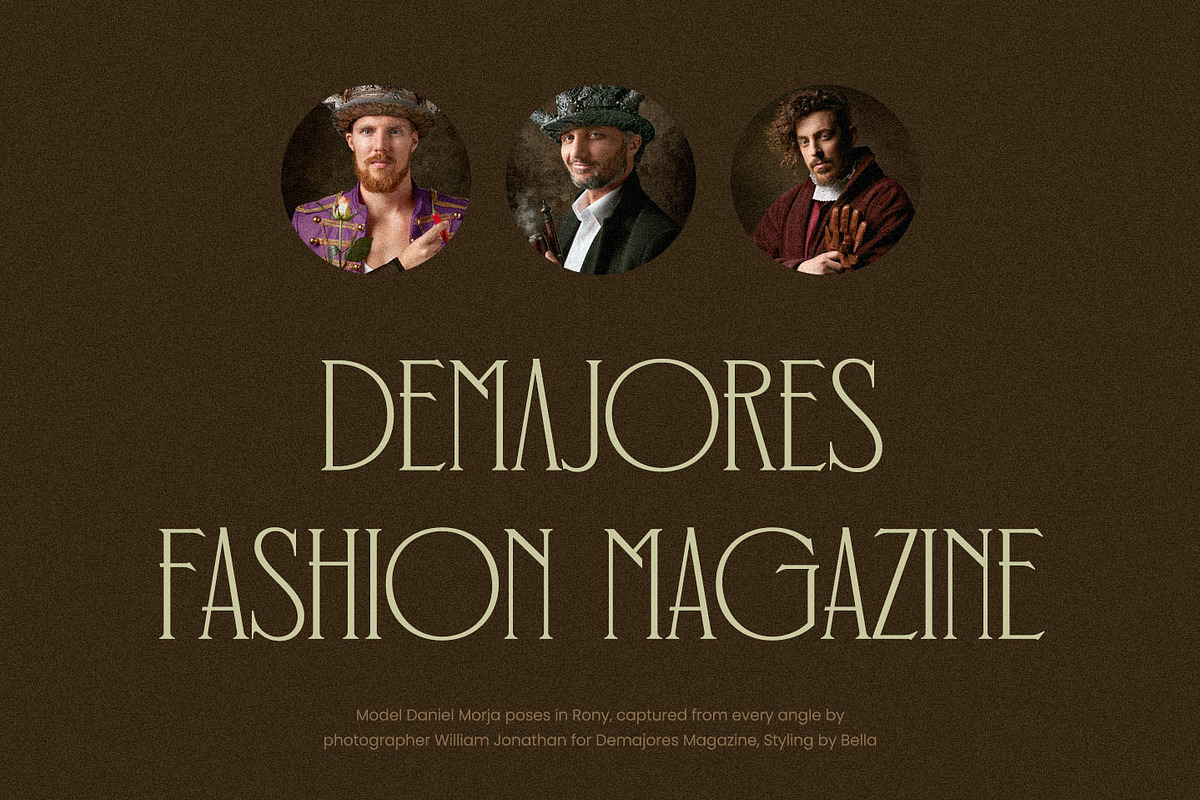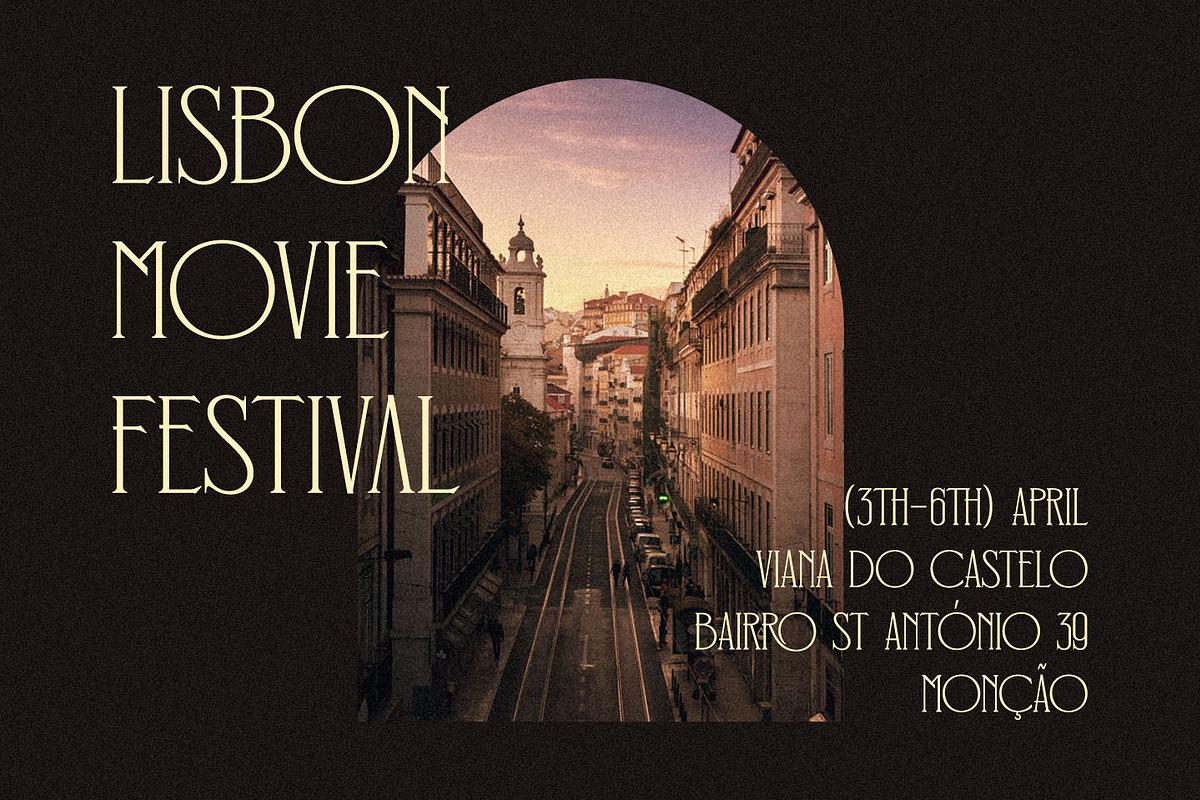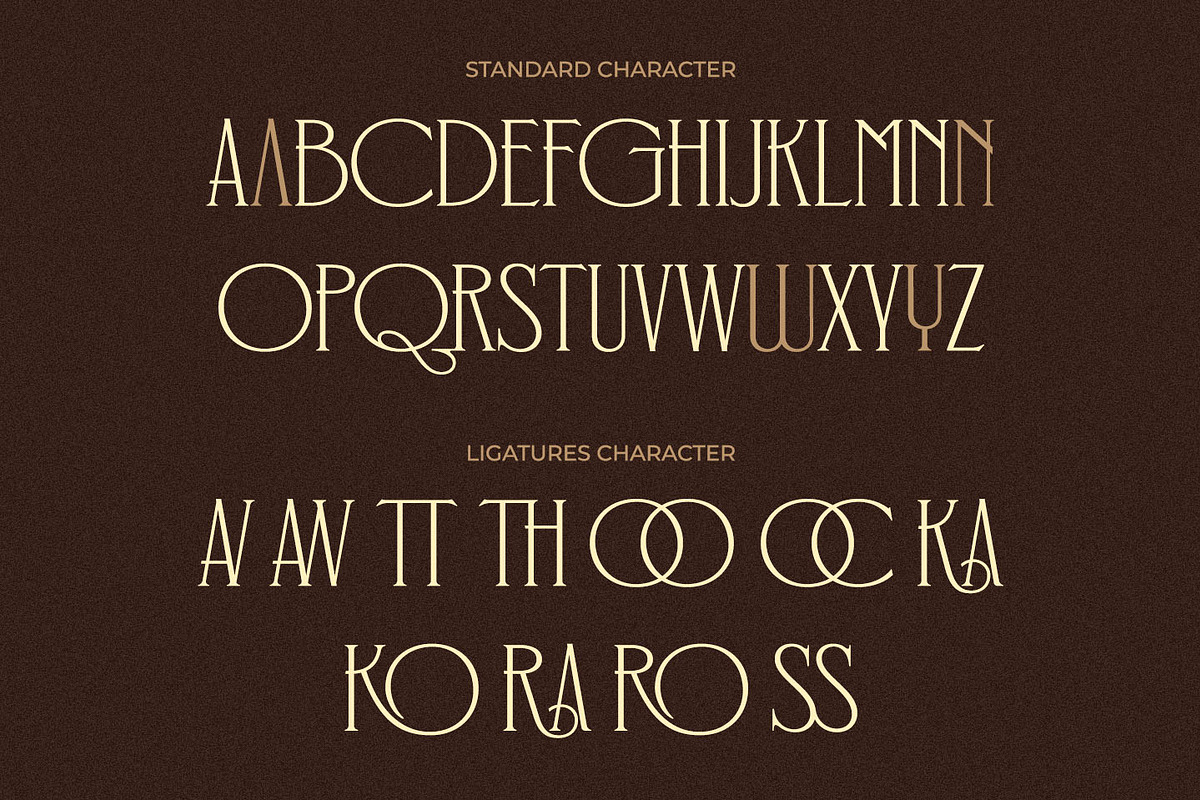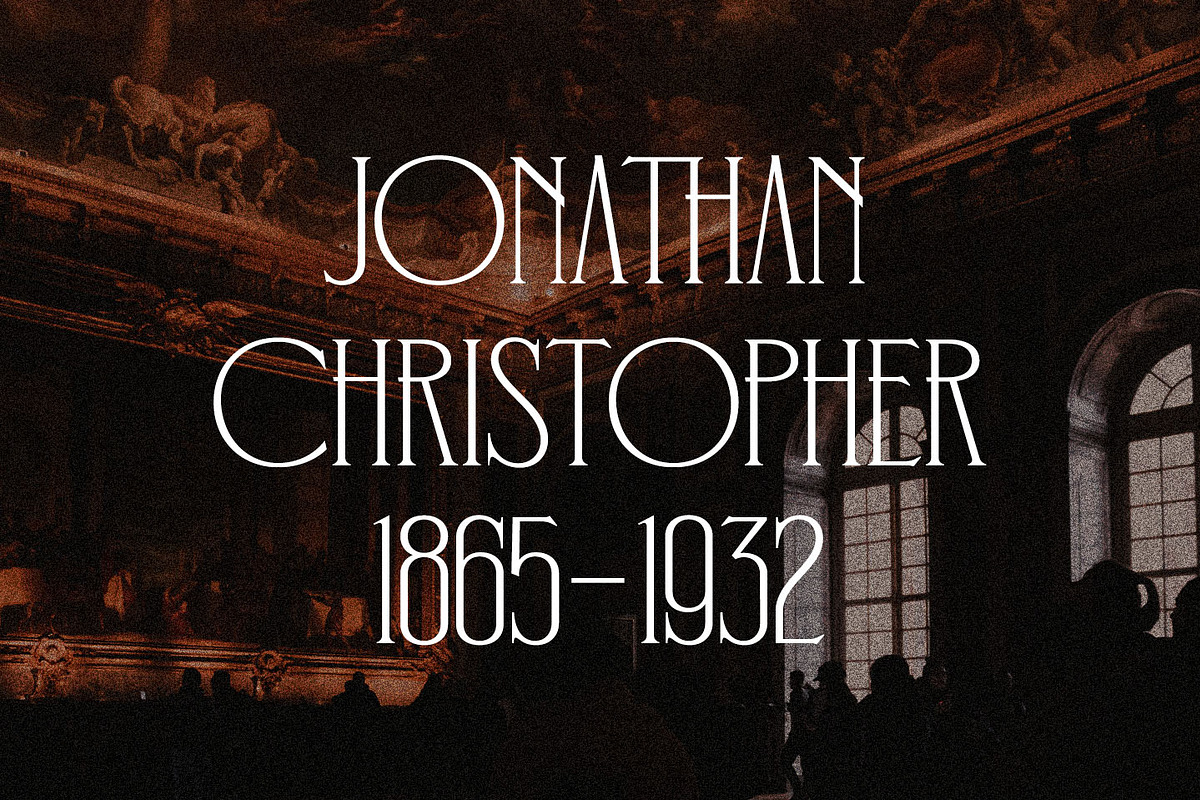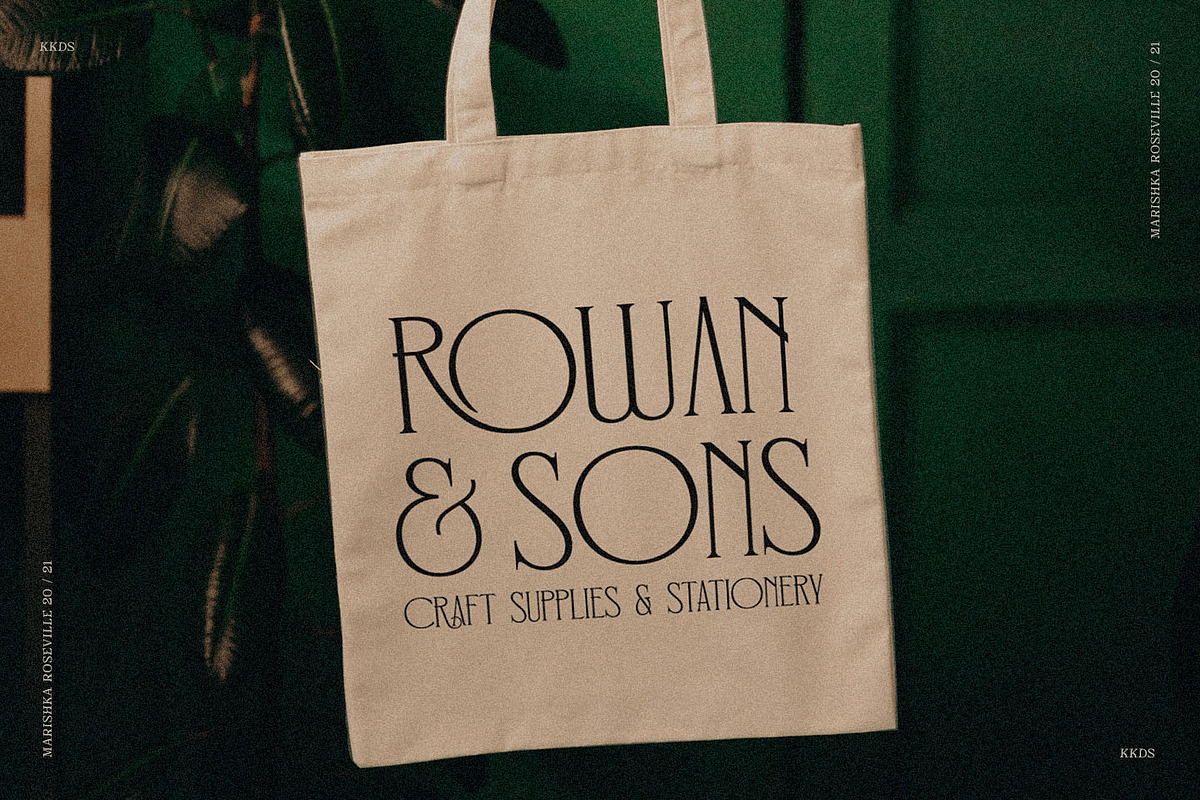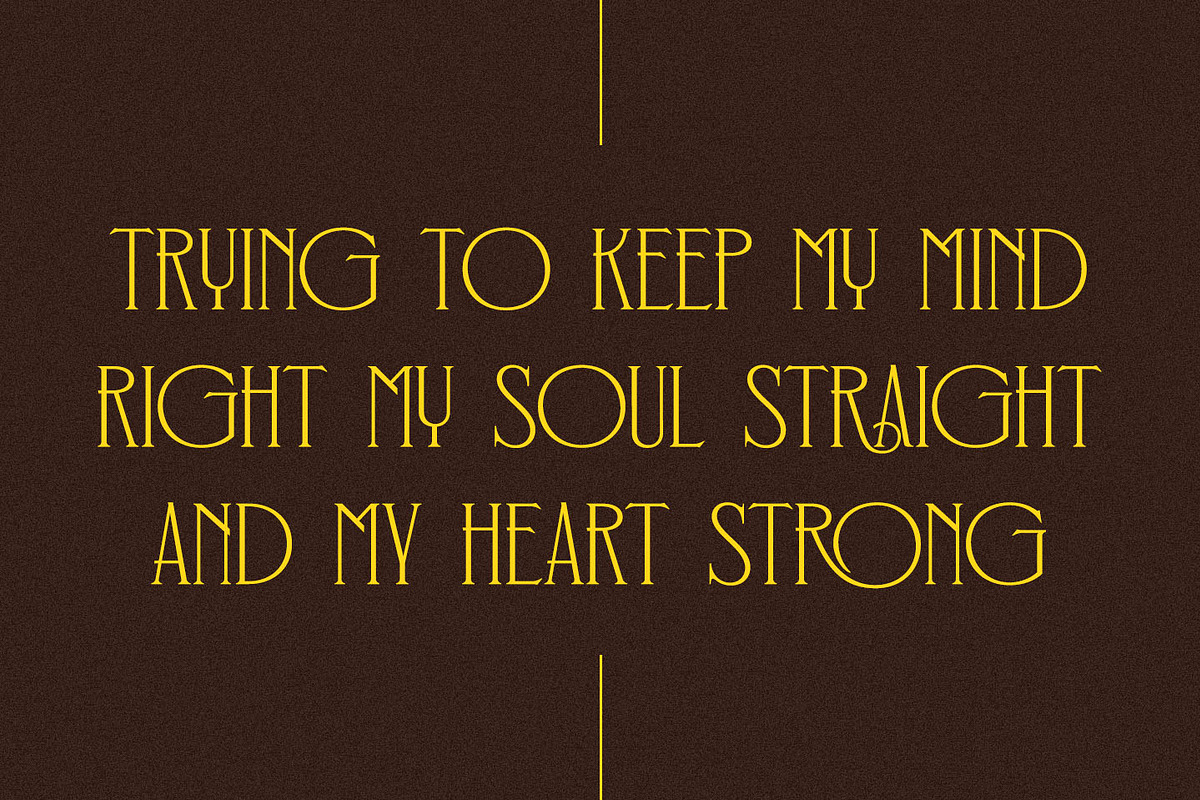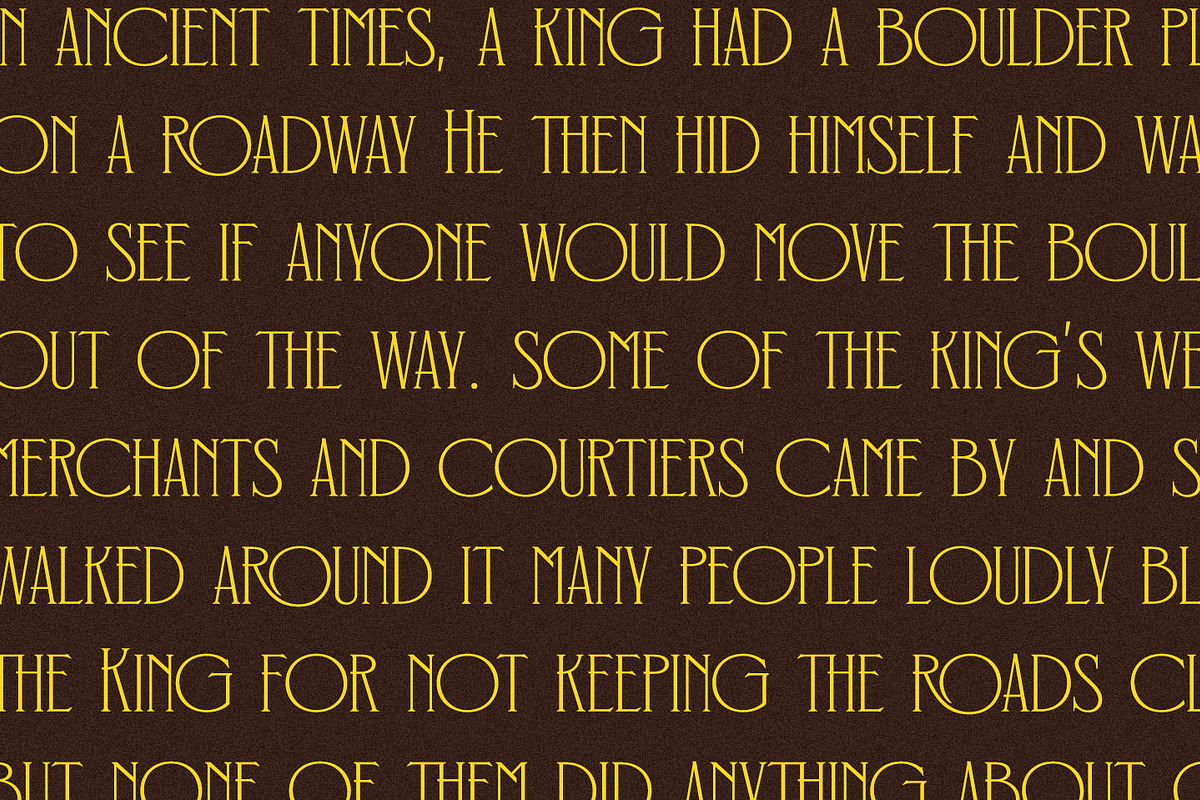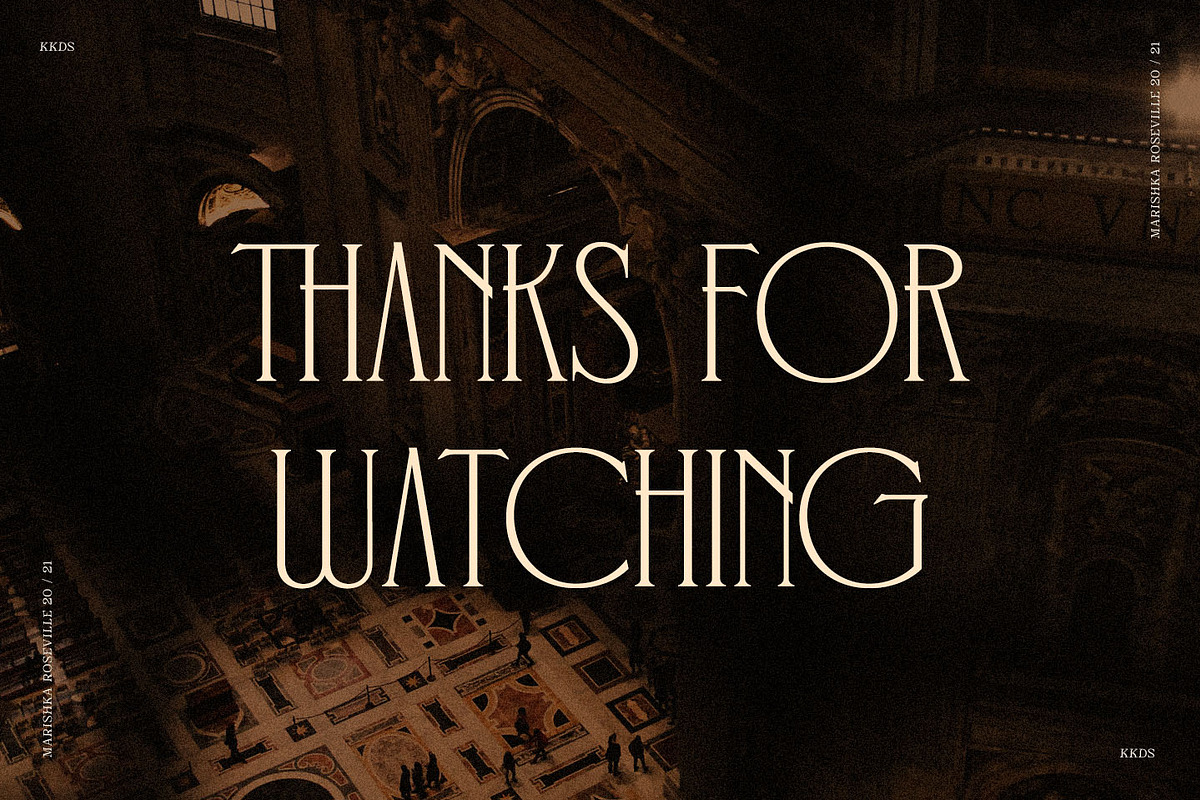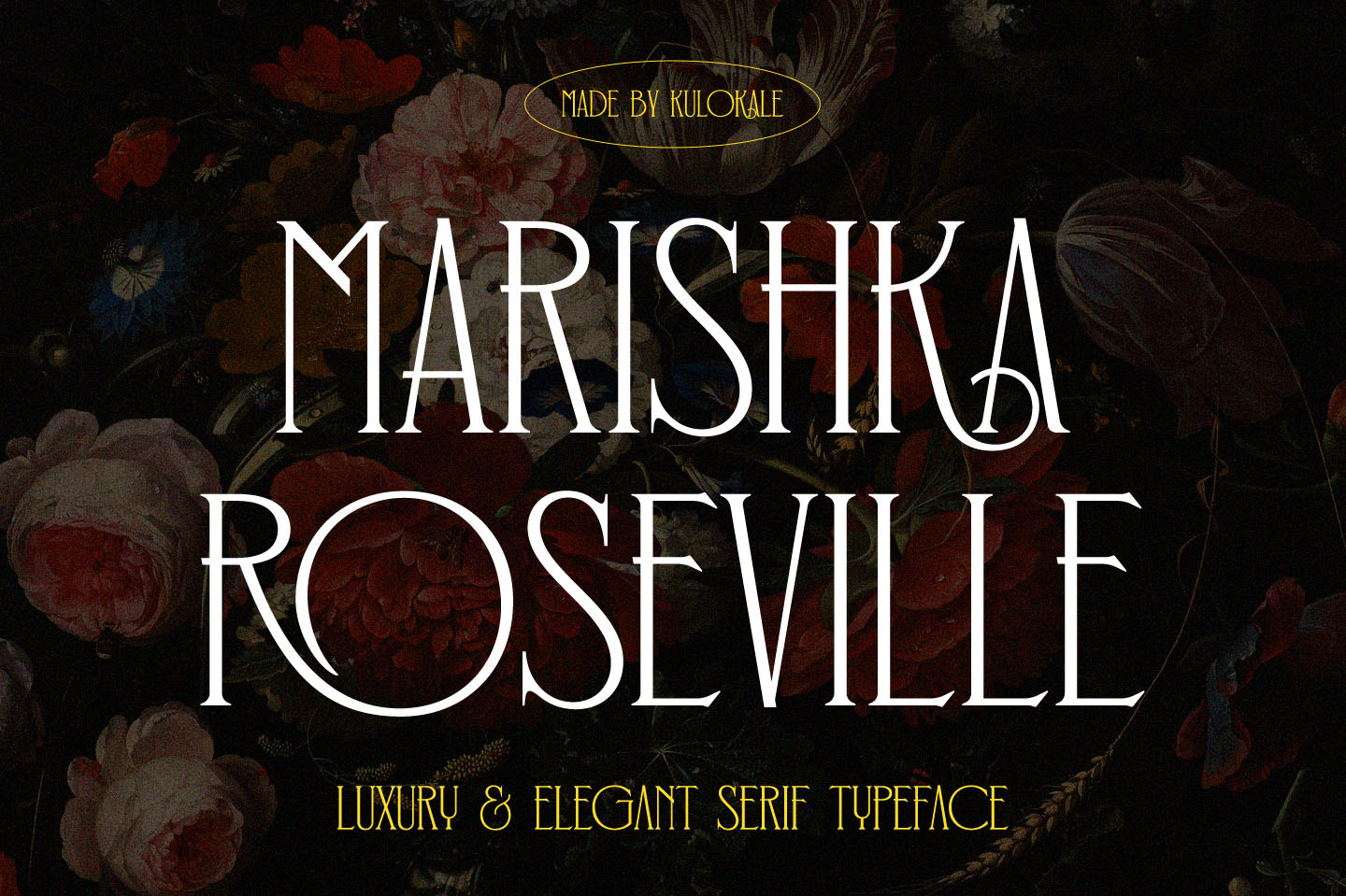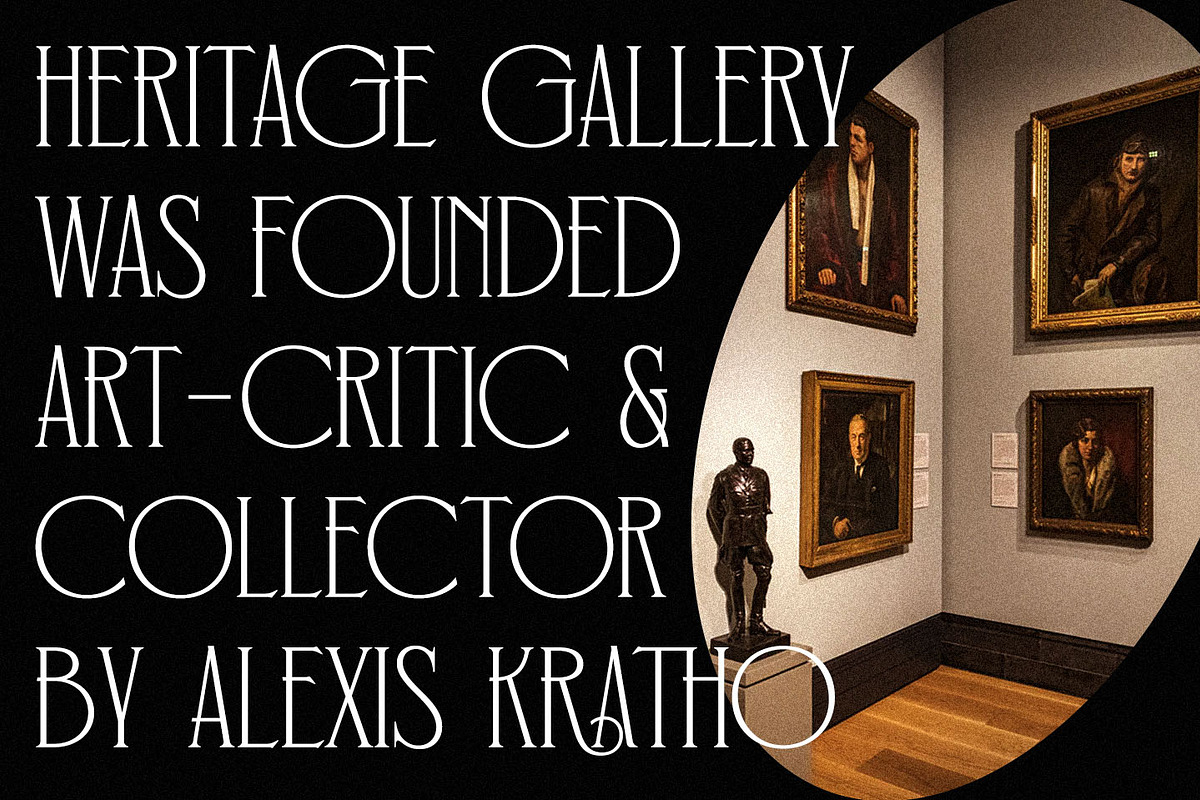
Marishka Roseville Serif Font
Marishka Roseville is a luxury and elegant display serif font. Marishka Roseville is well-suited for advertising, branding, logotypes, packaging, titles, headlines and editorial design. This font comes in two styles, Regular and Oblique Version.